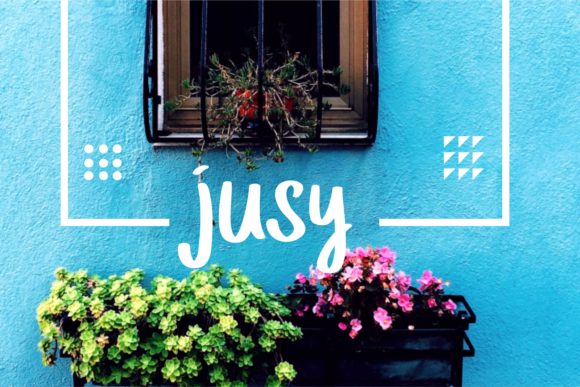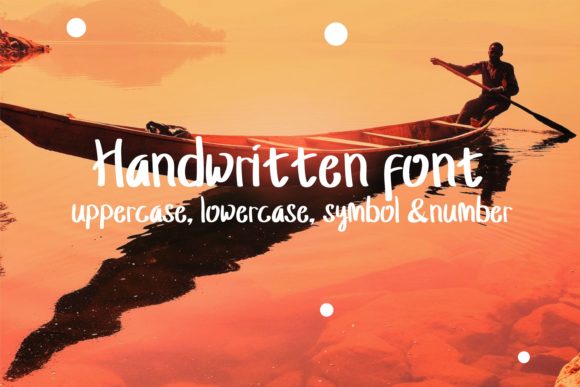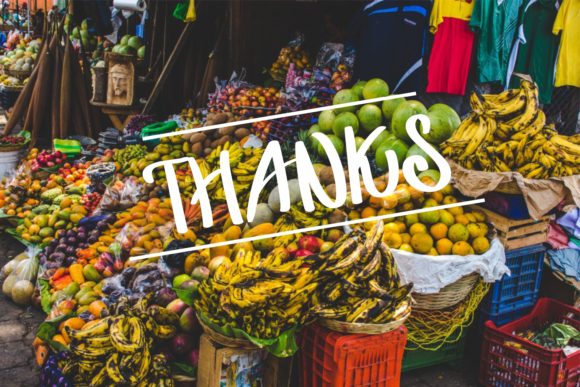
Jusy Font
About Jusy Font
The Jusy is an amazing handwritten font. It will allow you to add a decorative touch to your projects, and will work great with wedding invites and as a display on your blog and more!